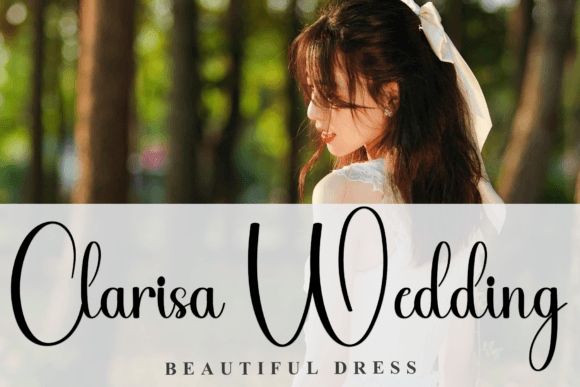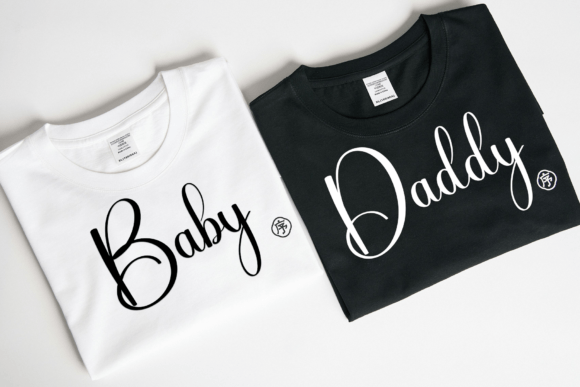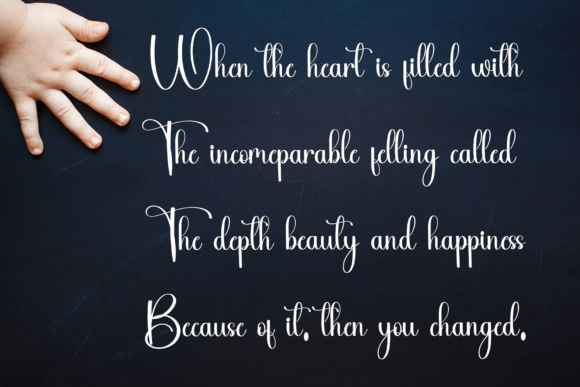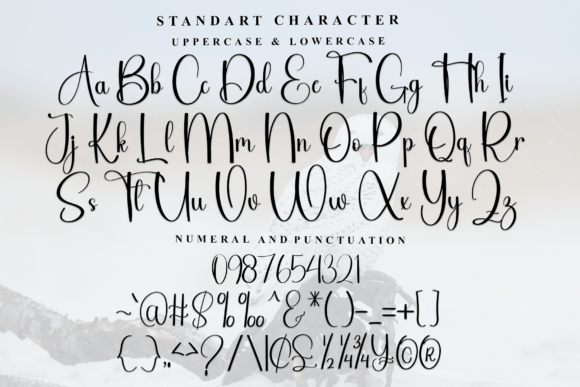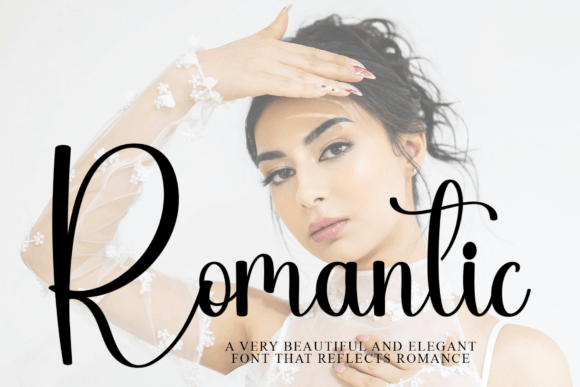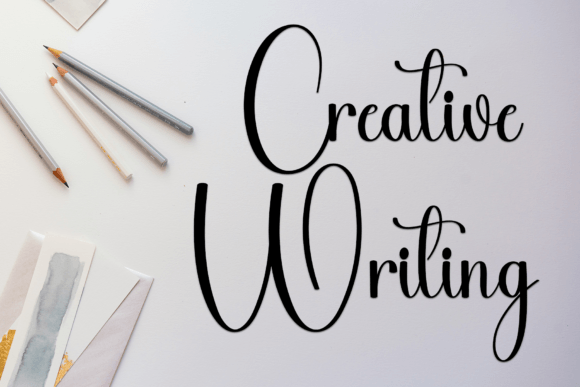
Unleashing the Charm of Handwritten Design: House Daddy Font
As a designer, have you ever struggled to convey the perfect message on a wedding invitation or a special thank-you note? You’ve poured your heart into the words, but the font just doesn’t seem to capture the essence. That’s where the magic of House Daddy Font comes in – a stunning script font that adds a touch of elegance and sophistication to any design.
House Daddy Font is more than just a font; it’s a key to unlocking the perfect handwritten look for your designs. Whether you’re creating wedding invitations, quotes, greeting cards, or business cards, this font is sure to impress. With its beautiful, flowing lines and delicate curves, House Daddy Font is a valuable addition to any designer’s toolkit.
As a designer, you know the importance of selecting the right font to convey your message. With House Daddy Font, you can trust that your designs will stand out from the crowd and leave a lasting impression.
House Daddy Font Key Features
• Font Family: House Daddy is a unique, hand-drawn font with a modern and playful feel.
• Unique Characteristics: Features a mix of rounded and angular shapes, with subtle texture and imperfections, giving it a hand-crafted feel.
• Character Set: Includes a comprehensive set of characters, including uppercase and lowercase letters, numbers, punctuation marks, and special characters.
House Daddy Font Review
When I first laid eyes on the House Daddy Font, I thought it was going to be a fun and playful font to work with. ✨ The bold lines and rounded edges do give it a friendly vibe. However, as I started to use it in a design project, I realized that it’s not as versatile as I thought it would be.
Here are some things that work well with the House Daddy Font:
• It’s great for creating a sense of nostalgia and retro charm.
• The bold lines make it perfect for headings and titles.
• The rounded edges give it a soft and approachable feel.
However, there are some limitations to keep in mind:
• It may not be the best choice for body text, as it can be a bit overwhelming.
• The font can be quite busy, making it difficult to read at smaller sizes.
• It’s not suitable for formal or professional designs.
Overall, the House Daddy Font is a fun and quirky font that’s perfect for certain types of projects. If you’re looking to create a playful and nostalgic vibe, this font is definitely worth considering. But if you need a font for a more formal or professional design, you may want to look elsewhere.
Tips for Getting the Most Out of House Daddy Font
Use House Daddy font for titles, headings, and other large text elements to add a touch of elegance and sophistication to your design. Pair it with a clean and simple font for body text to create a visually appealing contrast.
House Daddy font is perfect for:
Men’s grooming and lifestyle products
Any design project where a clean, modern, and masculine aesthetic is desired